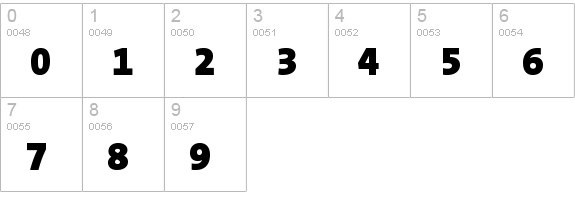
TheSans Black Expert Font Details
TheSans Black Expert is a maximum-weight, dramatic variant in the TheSans typeface family \xE2\x80\x94 well suited to maximum-impact headlines, posters, and packaging.
TheSans Black Expert font is a bold and dynamic typeface that exudes confidence and professionalism. Its strong and commanding presence makes it ideal for headlines, titles, and branding materials. With its clean lines and geometric shapes, this font brings a modern and sleek aesthetic to any design. TheSans Black Expert font is incredibly versatile, making it suitable for a wide range of projects. Whether you're designing a website, creating a logo, or crafting a brochure, this font will make a bold statement and captivate your audience. One of the best features of TheSans Black Expert font is that it is freely available to download at FontsMarket.com. This means that you can access this stunning typeface without having to worry about any extra costs. It gives you the freedom to incorporate this high-quality font into your designs without any limitations. TheSans Black Expert font is designed with utmost precision and attention to detail, ensuring that each character is visually appealing and harmonious with the overall design. Its wide range of weights and styles allows for endless creativity and customization options. Whether you're a professional graphic designer or a passionate hobbyist, TheSans Black Expert font is a must-have addition to your font library. Its versatility, elegance, and the fact that it is freely available to download at FontsMarket.com make it a valuable asset for any design project.